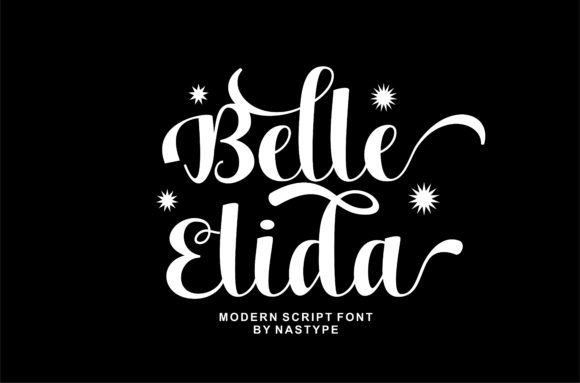
Introduce the Belle Elida Font: A Stroke of Elegance for Your Creative Palette
In a world where words dance and emotions ignite, the Belle Elida Font emerges as a captivating script, ready to transform your creative visions into masterpieces. Its graceful curves and delicate strokes evoke a sense of timeless elegance, inviting you on a journey of artistic expression.
With Belle Elida as your trusted companion, you can effortlessly craft designs that resonate with charm and sophistication. Its versatility knows no bounds, whether you're composing enchanting invitations, crafting heartfelt greeting cards, or adding a touch of allure to your social media posts.
Unleash the Power of Simplicity
Belle Elida's understated beauty lies in its simplicity. It's a font that speaks volumes without overpowering your designs. Its clean lines and natural flow allow your words to take center stage, ensuring that your message shines through with clarity and impact.
Whether you're a seasoned designer or just starting your creative journey, Belle Elida is an ideal choice for those who value simplicity and elegance. Its user-friendly nature makes it accessible to all, allowing you to create stunning designs with minimal effort.
A Touch of Distinction for Every Occasion
From the delicate swirls of wedding invitations to the heartfelt sentiments of birthday cards, Belle Elida adapts seamlessly to any occasion. Its versatility extends to branding materials, adding a touch of sophistication to logos, business cards, and marketing campaigns.
With Belle Elida, you have the power to transform the ordinary into the extraordinary. Its timeless appeal ensures that your designs will stand the test of time, leaving a lasting impression on your audience.
Embrace the Creative Possibilities
Belle Elida is more than just a font; it's an invitation to let your creativity soar. Its PUA encoding opens up a world of possibilities, granting you effortless access to glyphs and swashes that add depth and dimension to your designs.
With Belle Elida as your creative ally, you can:
- Craft captivating invitations that set the tone for unforgettable events.
- Design greeting cards that convey heartfelt messages with a touch of elegance.
- Create social media posts that captivate your audience and leave a lasting impression.
- Add a touch of sophistication to your branding materials, making your business stand out from the crowd.
Step into a World of Creative Elegance
Belle Elida beckons you to embark on a creative adventure where elegance and simplicity reign supreme. Its versatility and user-friendliness make it the perfect choice for designers of all levels, empowering you to create designs that captivate and inspire.
Join the ranks of those who have discovered the magic of Belle Elida, and let your creative spirit flourish like never before.